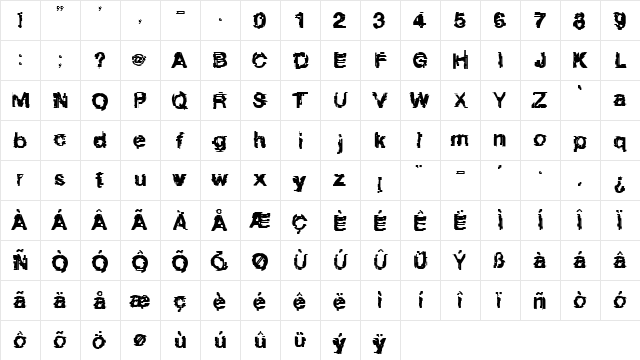
LTRedBabe Medium
Design Context for LTRedBabe Typeface
LTRedBabe is a composed and adaptable typeface that performs quietly and consistently across a wide range of design contexts.